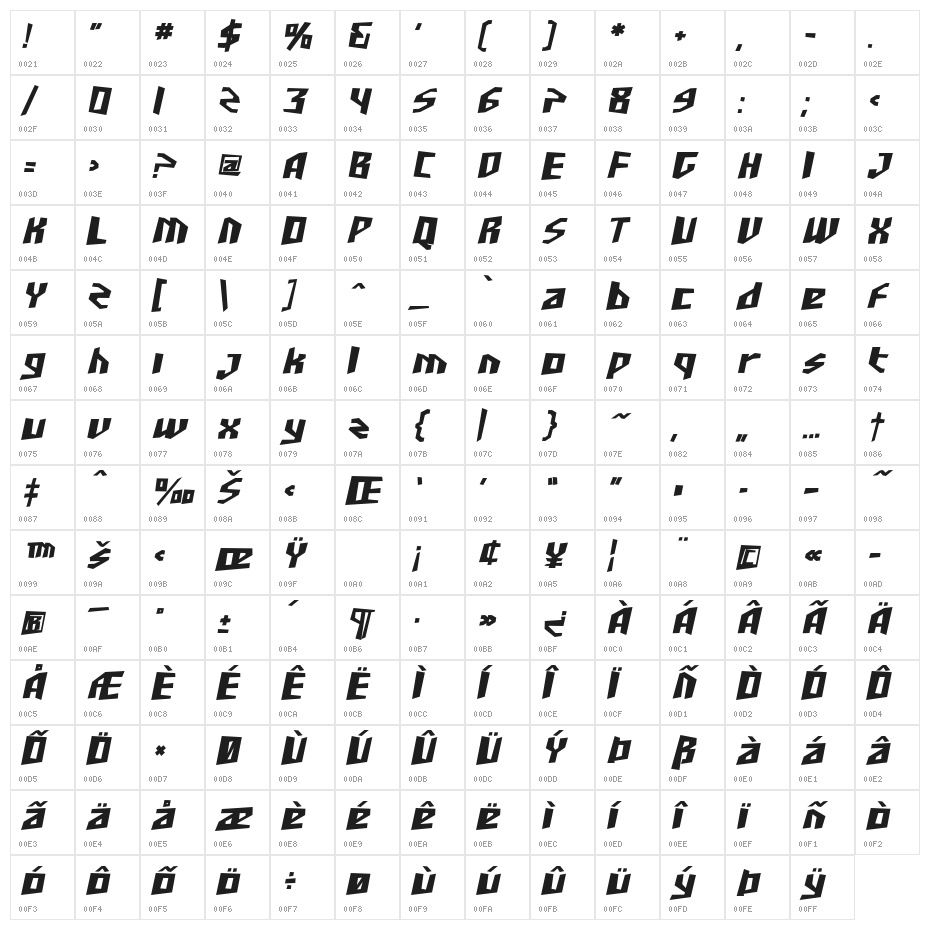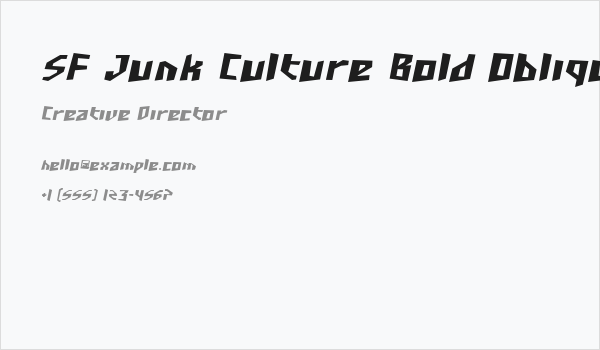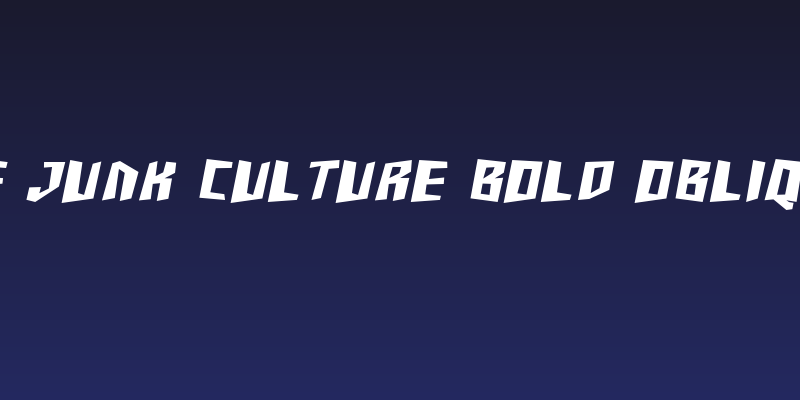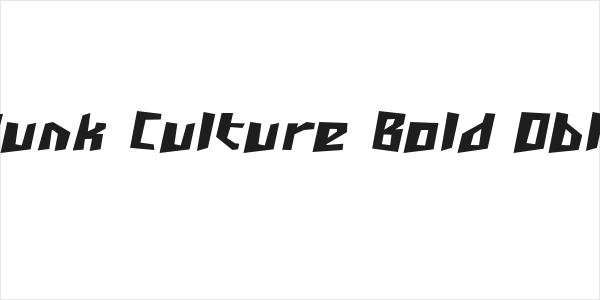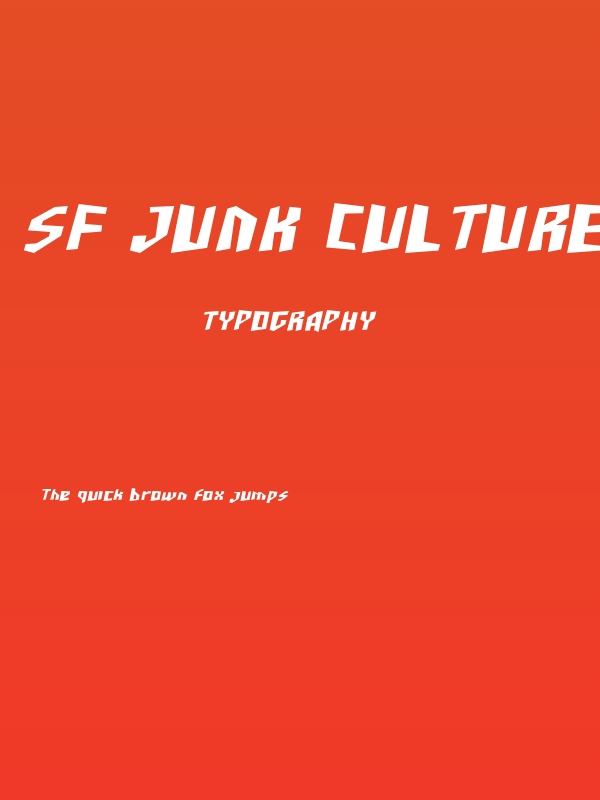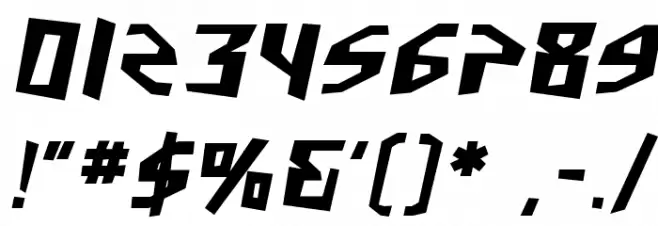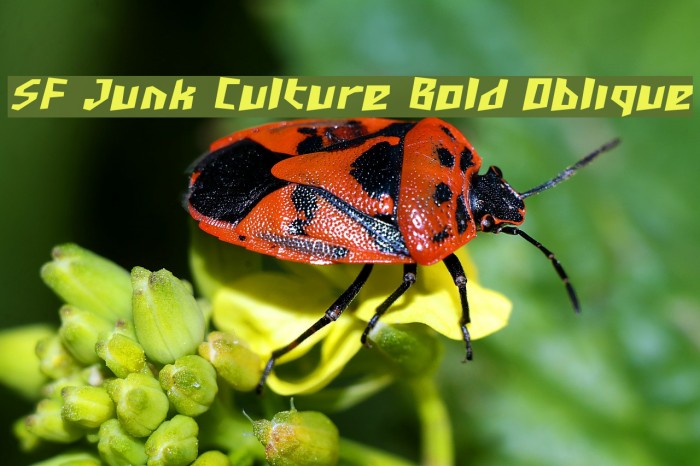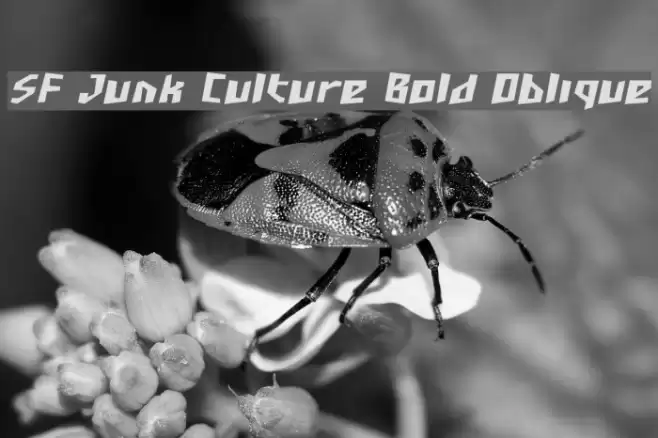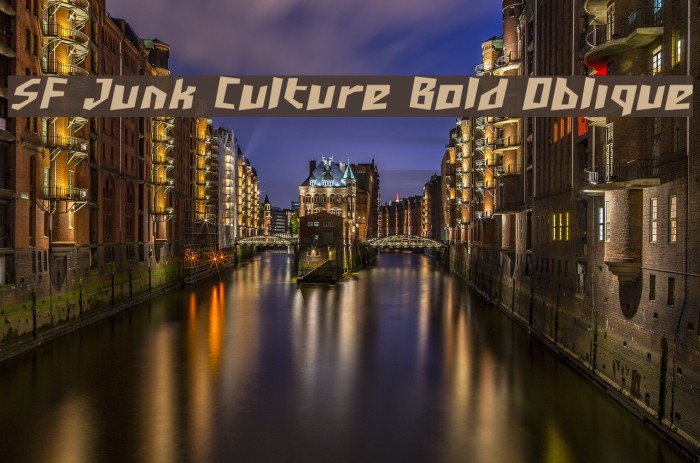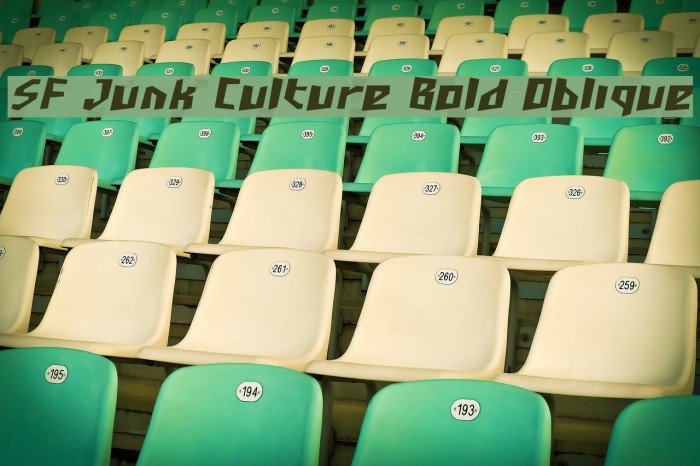
SF Junk Culture Bold Oblique Font
SF Junk Culture Bold Oblique Description
This font features a bold and dynamic style with an oblique slant, giving it a sense of movement and energy. The characters are angular and geometric, with sharp edges and a slightly futuristic appearance. The uppercase and lowercase letters maintain a consistent style, while the numerals and special characters are designed to match the overall aesthetic. The font's boldness and unique design make it stand out, making it suitable for attention-grabbing headlines or creative projects. Its distinct style is both modern and edgy, perfect for conveying a sense of innovation and boldness.
| Proposed Projects | Ideal for branding, posters, video game graphics, and any project needing a bold, modern look. |